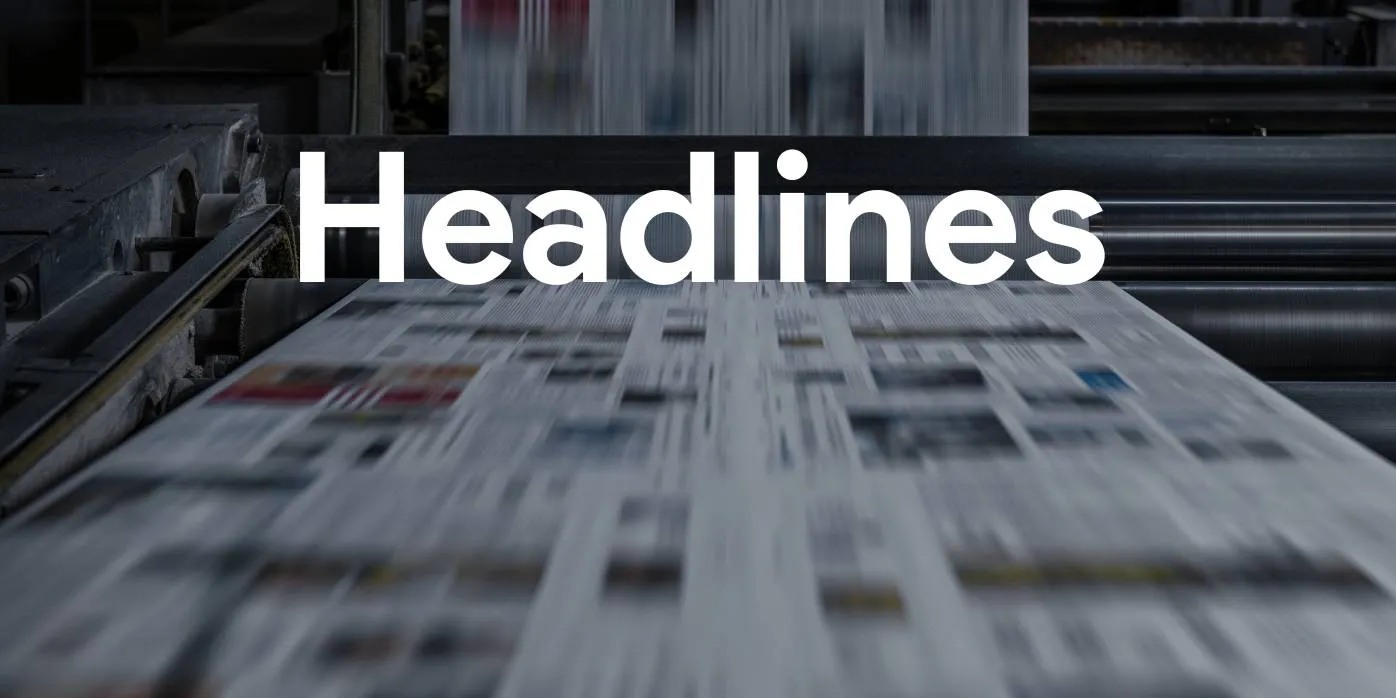
Circular Font is a geometric Sans-Serif font that was made by Swiss designer Laurenz Brunner and published by Lineto in 2013. This font is the second official release of the designer. The design structure of this font is founded primarily on geometric construction.
It has quirky strokes that can add warmth and impactful touch to anything. The lowercase letter “t” is unique, making this font recognizable as compared to other geometric Sans-Serif typefaces.
This font style comprises 8 different weights and styles Medium, Medium Italic, Bold, Bold Italic, Book, Book Italic, Black, and Black Italic. It also includes large and small letters, figures, symbols, signs, alternates, accents, punctuations, and some special characters.
Display Of Circular Font
Usage Of Circular Font
Due to its warmth and impact appearance, this font is perfect for both print media and digital screens, it is suitable for the creation of unique and attractive logos, flyers, headlines, brochures, posters, billboards, banners, themes, articles, resumes, content, printing, and various other projects.
This font is a great option for CVs, t-shirts, TV shows, painting, book covers, report writing, magazines, records, letterheads, promotions, headers, wallpapers, footers, marketing, branding of something, documents, assignments, online ads, and many other purposes.
This style of lettering is convenient for websites, tags, app developments, blogs, business cards, descriptions, outlets, vehicle wraps, layouts, mug designs, publicity, shopping bags, hats, thumbnails, backgrounds, reels, and many other projects.
| Designer | Laurenz Brunner |
| Style | Sans Serif |
What is the Circular Font?
This font is a geometric Sans-Serif font that was made by Swiss designer Laurenz Brunner and published by Lineto in 2013.
What Google Font is similar to Circular Font?
Montserrat Font is similar to this font family. It has a huge variety of styles and it matches perfectly with this font in width, weight, and x-height.
What font is paired with a Circular Font?
This font style goes well with FF Tisa Font, Calibre Font, Value Font, Inter Font, Lettera Font, Gotham Rounded Font, Copernicus Font, and lora font. it gives bold, easy-to-read, and contemporary results.